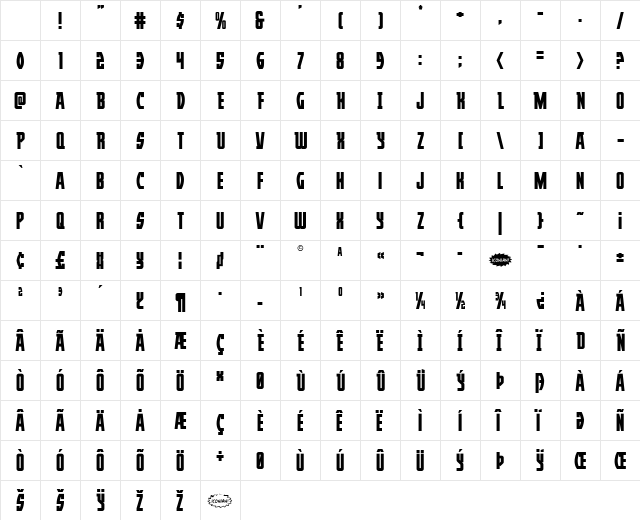
Complete Prowler Regular glyph index. Displaying only characters natively supported by Prowler Regular font.
Prowler is a composed and adaptable typeface that performs quietly and consistently across a wide range of design contexts.